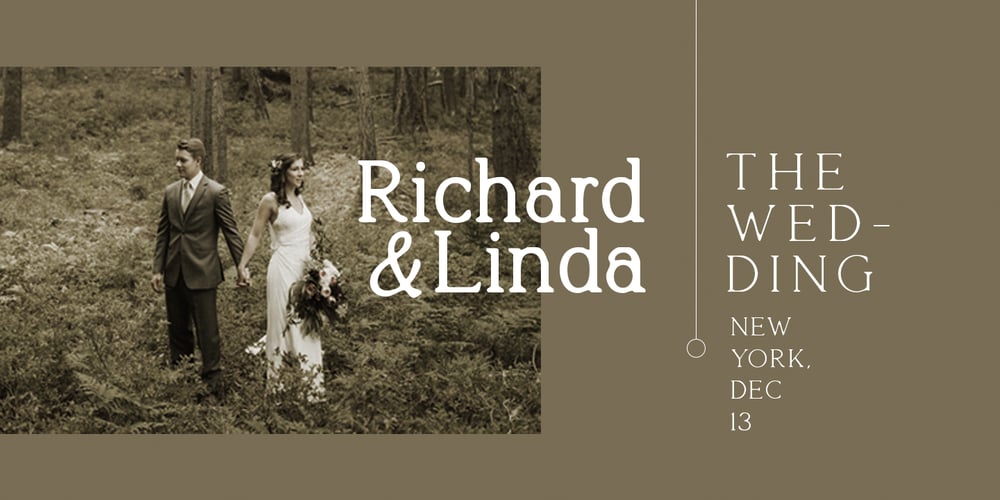
Quirkily
Quirkily font
Quirkily Font Family was designed by Sarid Ezra and published by Sarid Ezra. Quirkily contains 6 styles and family package options. Quirkily is a crooked serif family with natural and organic feels! Contain 6 fonts. Including Light-Regular – Bold with an italic each style. You can use this font for every project. Suitable for branding logo, a classic theme, and also for text. This font family also support multilingual, number and symbol. If you bored with a casual serif, maybe this font is for you!